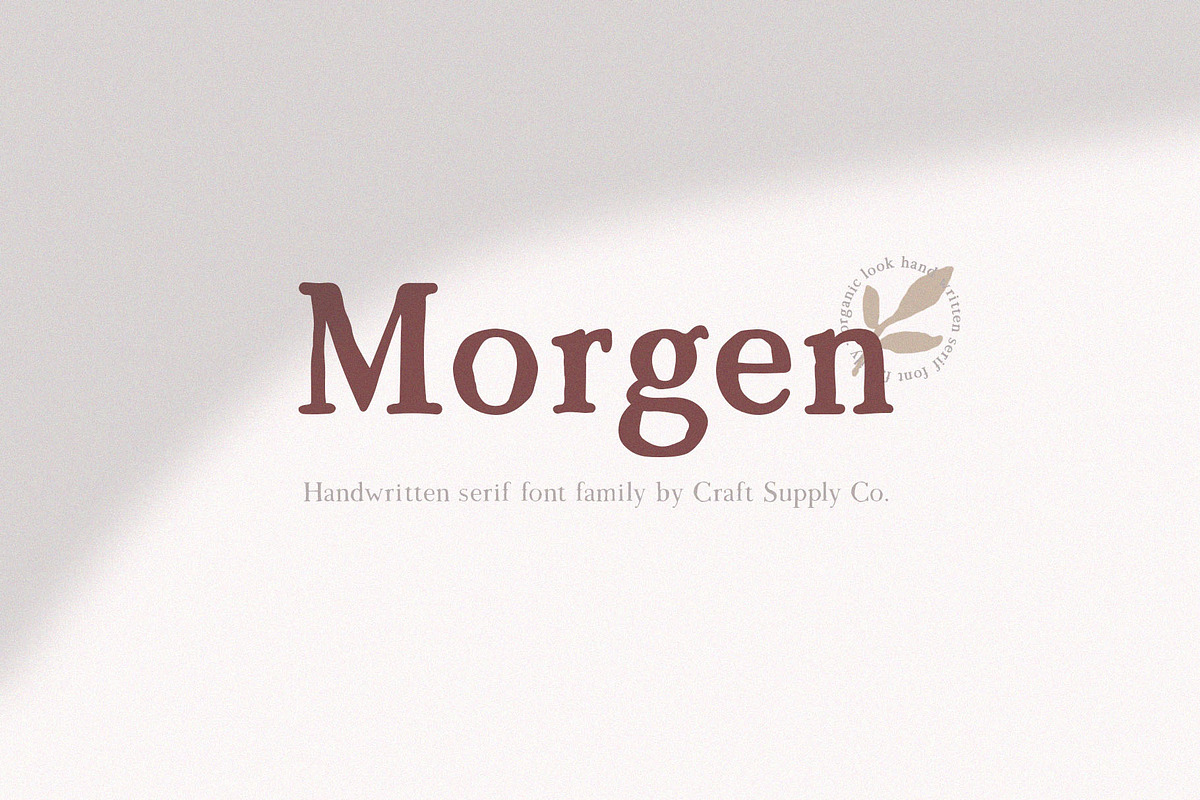
Morgen - Handwritten Serif Font
Introducing Morgen - Handwritten Serif Font Family.
Introducing Morgen - Handwritten Serif Font Family. It can be used to create almost all types of design projects like print materials. Just use your imagination and your project will become more alive and look great than ever with Morgen - Handwritten Serif Font Family.
You want to make a greeting card or a package design, or even a brand identity, craft design, any DIY project, book title, wedding font, pop vintage design, retro design or any purpose to make your art / design project look pretty and trendy? Feel free to play with this fonts!
- Morgen Thin
- Morgen Regular
- Morgen Bold
- Morgen Book
- Morgen Thin Italic
- Morgen Italic
- Morgen Bold Italic
- Morgen Book Italic
- Accents (Multilingual characters) (AÀÁÂÃÄÅCÇDÐEÈÉÊËIÌÍÎÏNÑOØÒÓÔÕÖUÙÜÚÛWYÝŸỲŸÆŒßÞ)